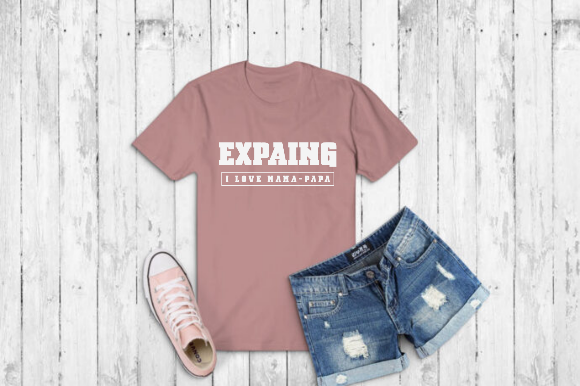
Expaing
Expaing: A Modern and Bold Slab Serif Font
Expaing is a striking slab serif font characterized by its modern and bold design. With chunky letterforms, this font is perfect for making your designs come alive, adding a sense of strength and impact to any project.
Key Features of Expaing
• Modern Design: Features contemporary letterforms that align with current design trends.
• Bold Aesthetic: Offers a strong visual presence, making it ideal for attention-grabbing applications.
• Slab Serif Structure: Incorporates thick, rectangular serifs typical of slab serif fonts, providing a sturdy look.
• Versatile Application: Suitable for a wide range of projects, from print to digital media.
• Impactful Quality: Designed to enhance your creative ideas and make them visually striking.
Ideal Uses for Expaing
Expaing’s unique characteristics make it particularly well-suited for:
• Headlines and titles that need to stand out.
• Branding and logo design that requires a memorable identity.
• Posters and advertisements that demand bold typography.
• Website headers and digital content aimed at creating an impact.
• Any creative project that seeks to convey strength and modernity.
When incorporating Expaing into your designs, consider the following tips:
• Use for both large headlines and smaller text blocks to showcase its versatility.
• Experiment with different sizes to highlight the font’s bold features.
• Pair with complementary fonts to create contrast and visual interest.
• Take advantage of its modern nature in projects where you want to convey innovation and confidence.
Expaing is an excellent choice for designers looking to add a modern and bold slab serif font to their typographic toolkit. Its ability to create an impactful presence makes it stand out in the world of typography. Whether you’re working on branding, creating layouts for advertising, or developing marketing materials, Expaing offers the perfect blend of style and strength.
Add Expaing to your creative projects and explore how it can elevate your designs with its chunky lettered style. From striking headlines to memorable branding elements, this font provides the tools to create engaging typography that resonates with audiences.